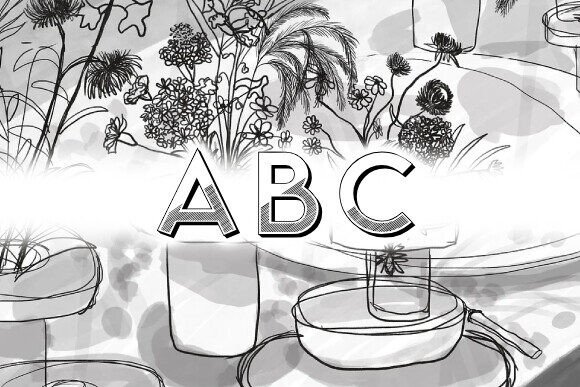
Introduction to Mythical Font
Do you remember that moment when you’re working on a creative project, and you just can’t find the perfect font to bring your idea to life? The one that will make your design stand out, make people notice, and make them want more? I’m sure you do.
Well, we’re here to tell you that your search is over. Introducing the Mythical Font, a stunning 3D font that will elevate your designs to a whole new level. Whether you’re creating posters, flyers, t-shirts, or anything in between, this font is the perfect design resource to make your project shine.
Key Features of Mythical Font
- High-quality design resource ideal for creative projects, offering a unique touch to any visual content.
- Perfect for designers seeking a unique, mythical-inspired design element to elevate their creative projects.
Honest Review: Mythical Font
I recently had the opportunity to work with the Mythical Font, a unique and intriguing design resource that’s perfect for creative projects that require a touch of magic. As a designer, I was eager to see how it would perform.
- ✨ High-quality design: The font is beautifully crafted, with intricate details and a unique style that sets it apart from more common fonts.
- ⚠️ Limited customization options: While the font itself is stunning, I found that there are limited customization options available, which may limit its use in certain creative projects.
Overall, I was impressed with the Mythical Font, despite its limitations. Its unique design and high-quality construction make it a valuable addition to any designer’s toolkit, and the free download is a definite bonus. With a bit more attention to compatibility and customization, I have no doubt that this font will become a go-to resource for designers everywhere.
Introduction to Mythical Font
To get the most out of Mythical Font, experiment with different font sizes, colors, and styles to create unique and eye-catching designs.
Mythical Font is ideal for:
- Designing fantasy-themed artwork and graphics
- Creating invitations and event materials
- Adding a touch of whimsy to branding and marketing materials